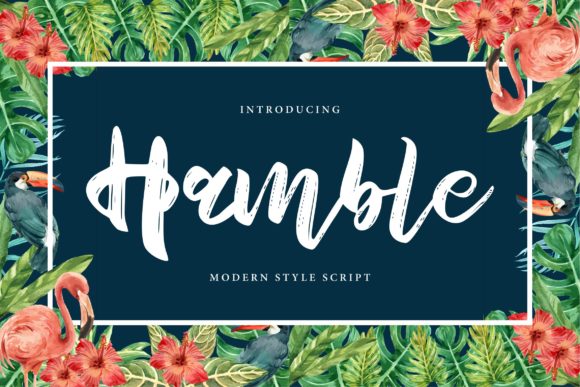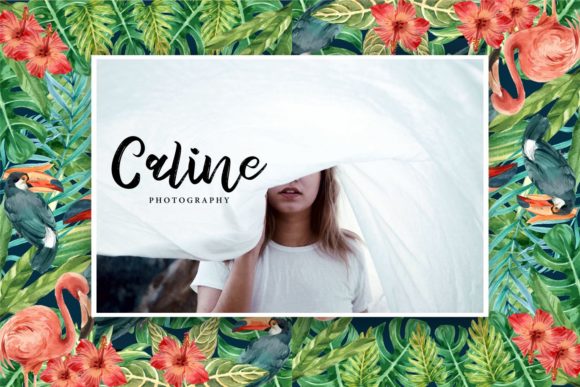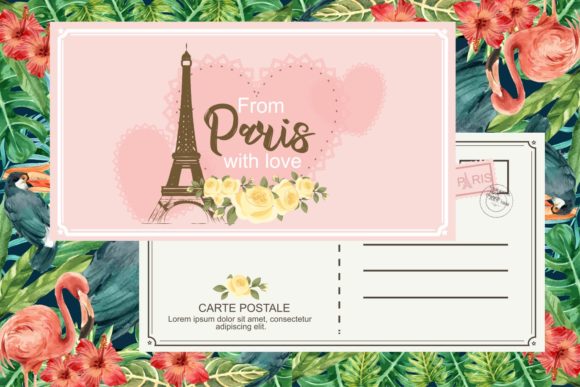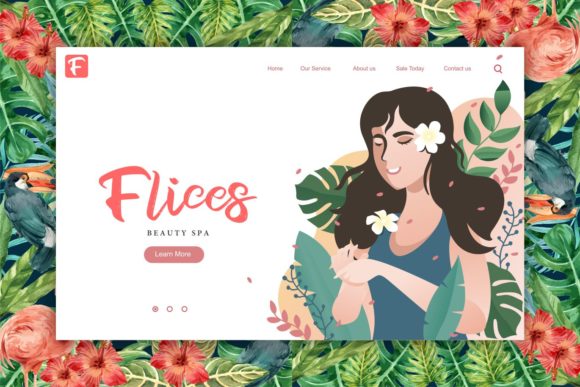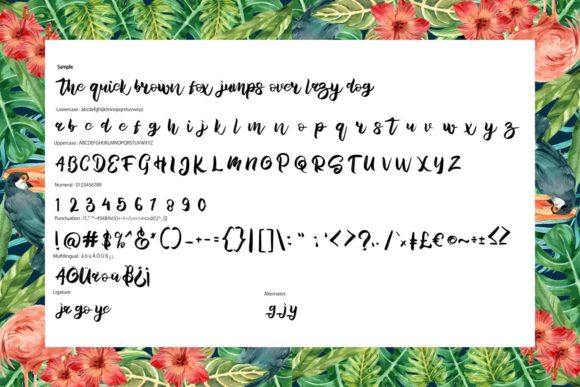
HomeScript FontsHamble Font Script Fonts Hamble Font FacebookXPinterestWhatsApp Hamble Font Poster 2 Hamble Font Poster 3 Hamble Font Poster 4 Hamble Font Poster 5 Hamble Font Poster 6 About Hamble Font Hamble is a playful and sweet and script with beautiful swashes. Fall in love with its authentic charm! DOWNLOAD NOW People also explored Mersin Font Elpanas Font Hello Days Font American Beauty Font Bontteny Font Corsario VF Vallencia Font Suggest Script Font Jacqueline Font 312 0 TagsHamble Font Previous articleKarlust FontNext articleAzala Font LEAVE A REPLY Cancel reply Comment: Please enter your comment! Name:* Please enter your name here Email:* You have entered an incorrect email address! Please enter your email address here Website: Save my name, email, and website in this browser for the next time I comment. Personal Use Free Aliqa Personal Use Free Read more about this font Meloche Book Personal Use Free Read more about this font Propaniac Personal Use Free Read more about this font Peristiwa Font Personal Use Free Read more about this font BLOG Modern Sans-Serif Fonts That Brands Love in 2025 In 2025, modern sans-serif fonts remain a top choice for brands looking to project clarity, professionalism, and... Top 7 Google Fonts Alternatives for Faster and Privacy-Friendly Web Design (2025) Free Fonts Risk: Why Free Fonts Can Be Dangerous for Designers To increase your work productivity, choose the most readable fonts.